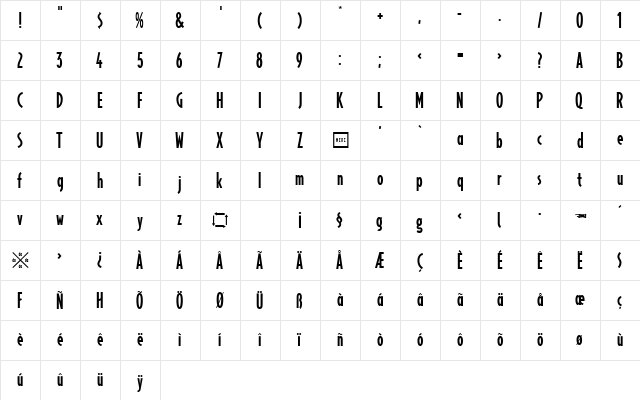
MerzRegular Regular
Design Context for MerzRegular Typeface
MerzRegular is a composed and adaptable typeface that performs quietly and consistently across a wide range of design contexts.